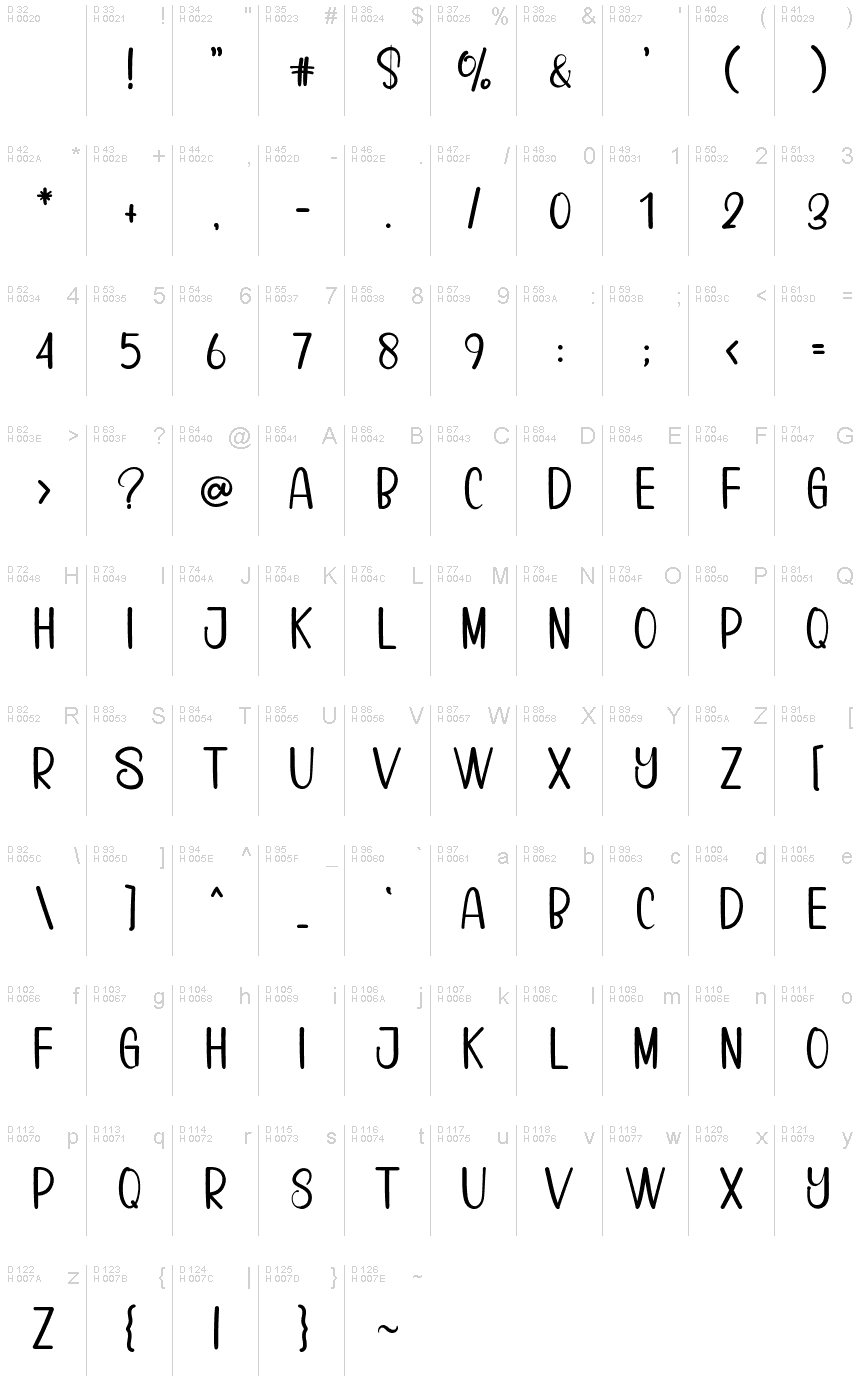
Sweet Planner
Sweet Planner, a delightful creation by Inermedia Studio, is a handwritten font that exudes charm and personality. Its semi-light weight lends a gentle, approachable feel to the text, making it an excellent choice for designs that require a touch of warmth and authenticity. The playful yet readable characters of Sweet Planner are reminiscent of quick pen strokes on paper, perfect for evoking a sense of personal touch and handcrafted quality.
The aesthetic appeal of Sweet Planner lies in its balance between whimsy and legibility. Each letter showcases subtle variations in stroke width and form, creating an inviting rhythm in written content. This font's style would be particularly well-suited for projects such as personalized stationery, social media graphics, branding materials for boutique businesses, or any creative endeavor that benefits from a handmade impression.
Sweet Planner's versatility extends to digital platforms as well. Its clear yet organic appearance ensures readability even on screens of various sizes, highlighting its potential in web design and digital applications where user engagement is key. Embrace the unique character of Sweet Planner to add an element of bespoke elegance to your creative projects.